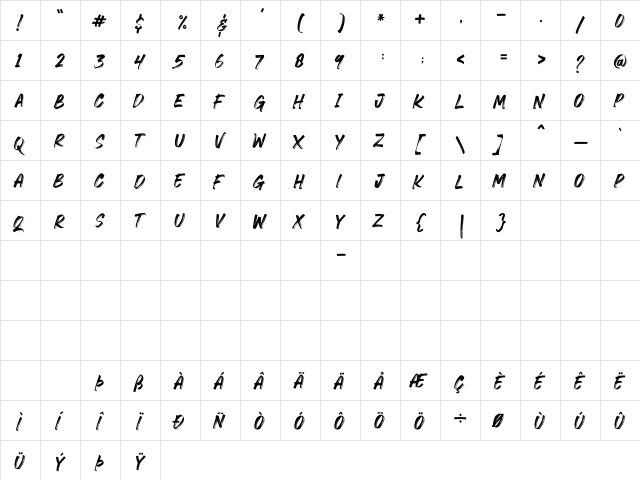
CRACKERS BRUSHER Regular
Design Context for CRACKERS BRUSHER Typeface
CRACKERS BRUSHER flows with the natural rhythm of handwritten lettering, making it ideal for designs that call for warmth and personal expression.
Font Pairing: Combine CRACKERS BRUSHER with a simple geometric sans for maximum contrast — the tension between flowing curves and clean structure is a classic typographic pairing.
Pro Tip: Use CRACKERS BRUSHER for short runs of text — names, titles, or taglines. Extended body copy in script faces tires the eye quickly.